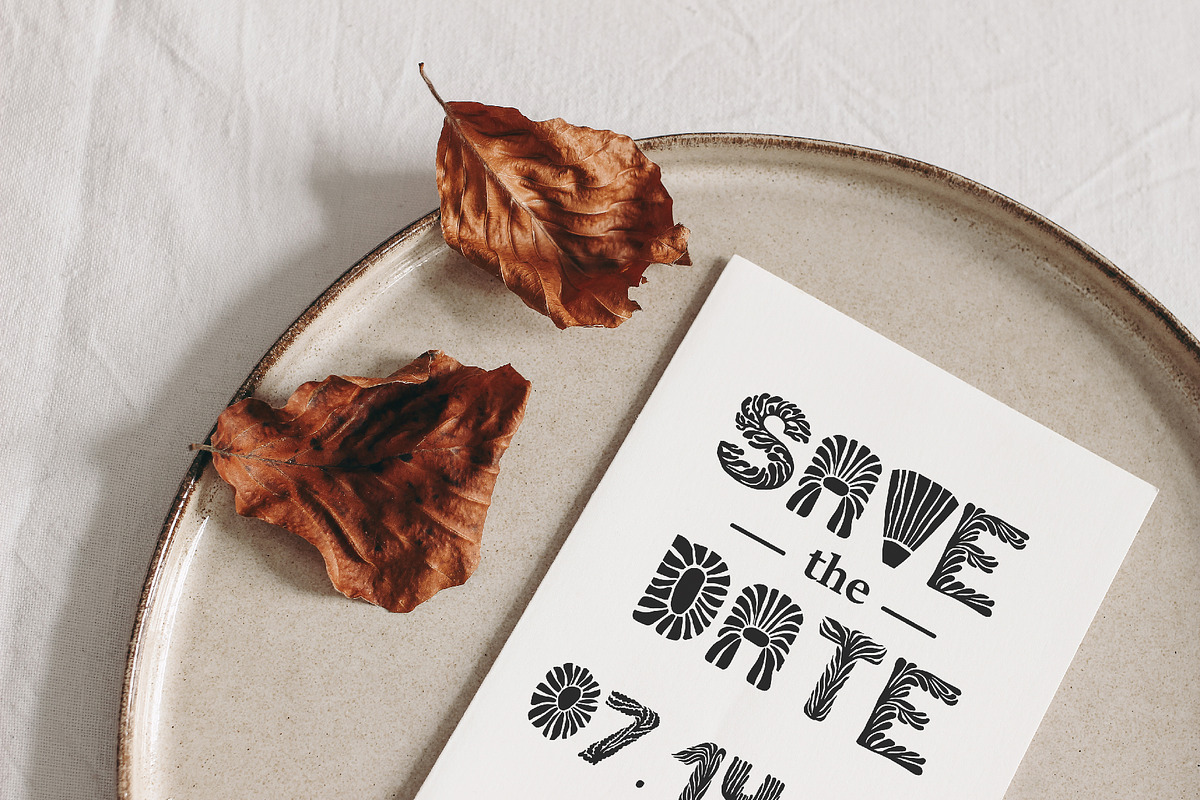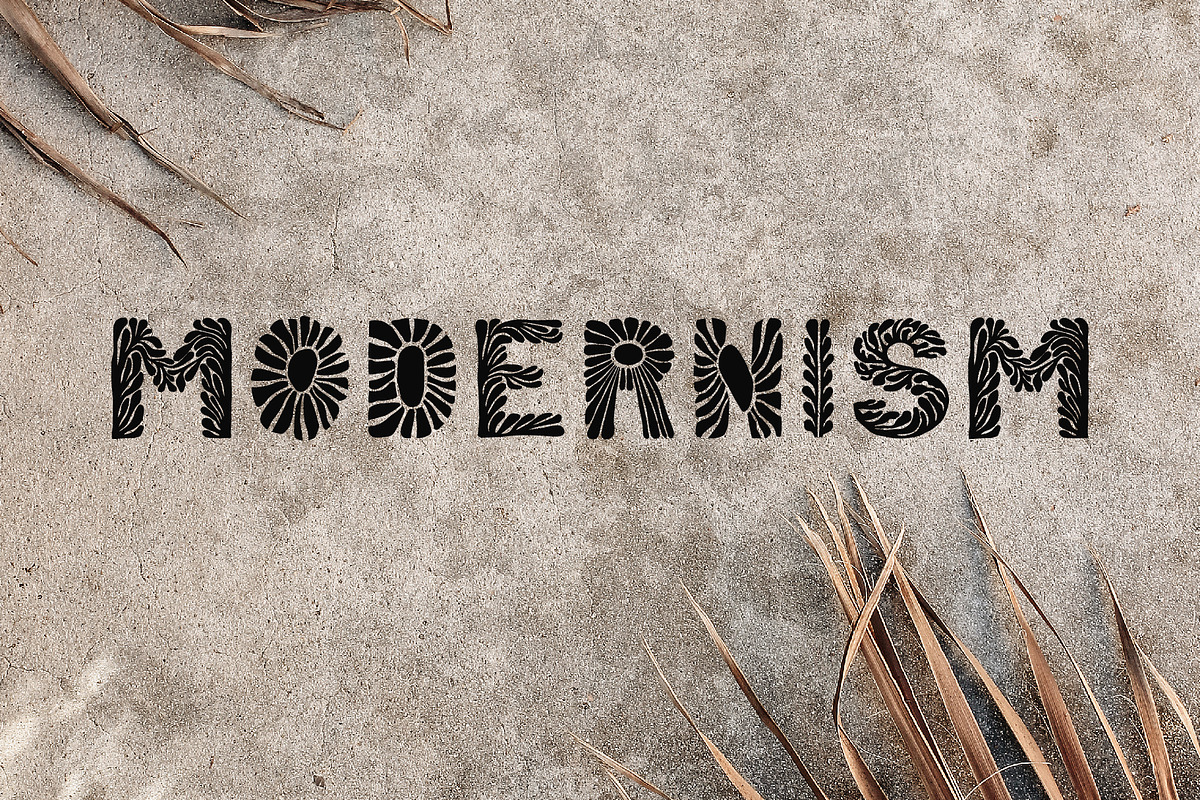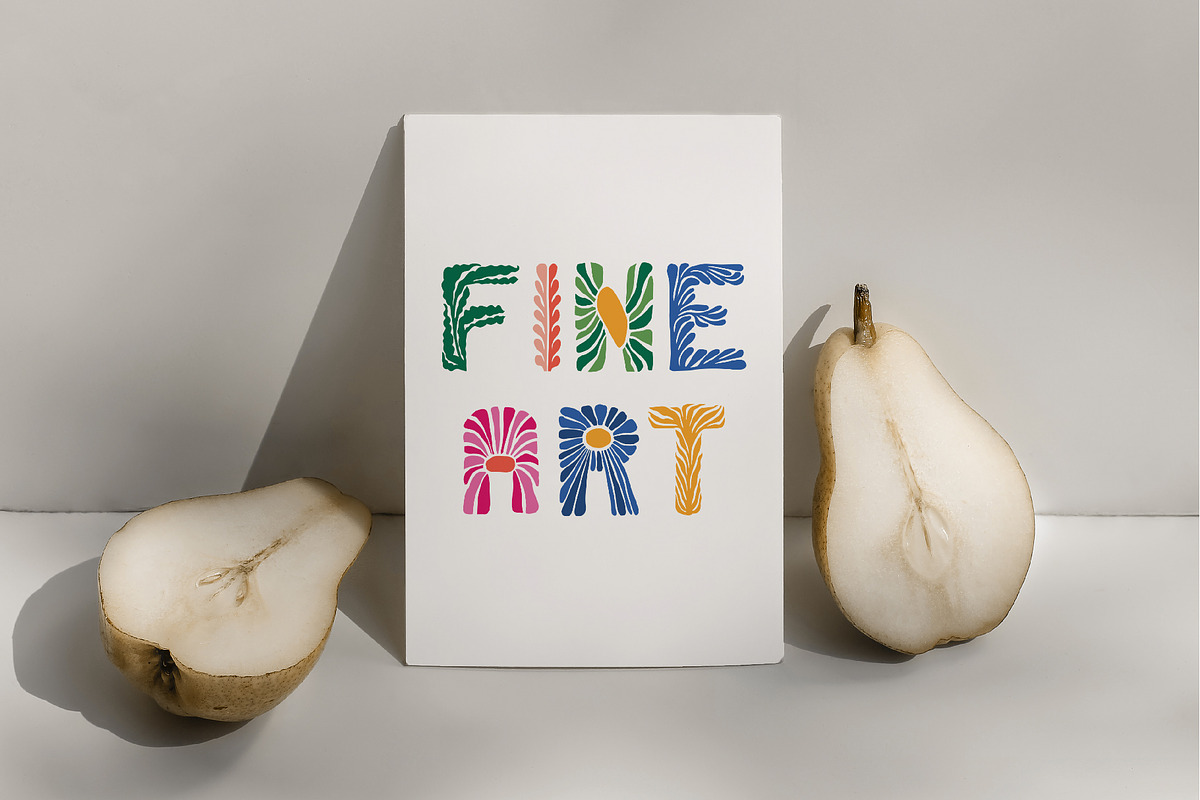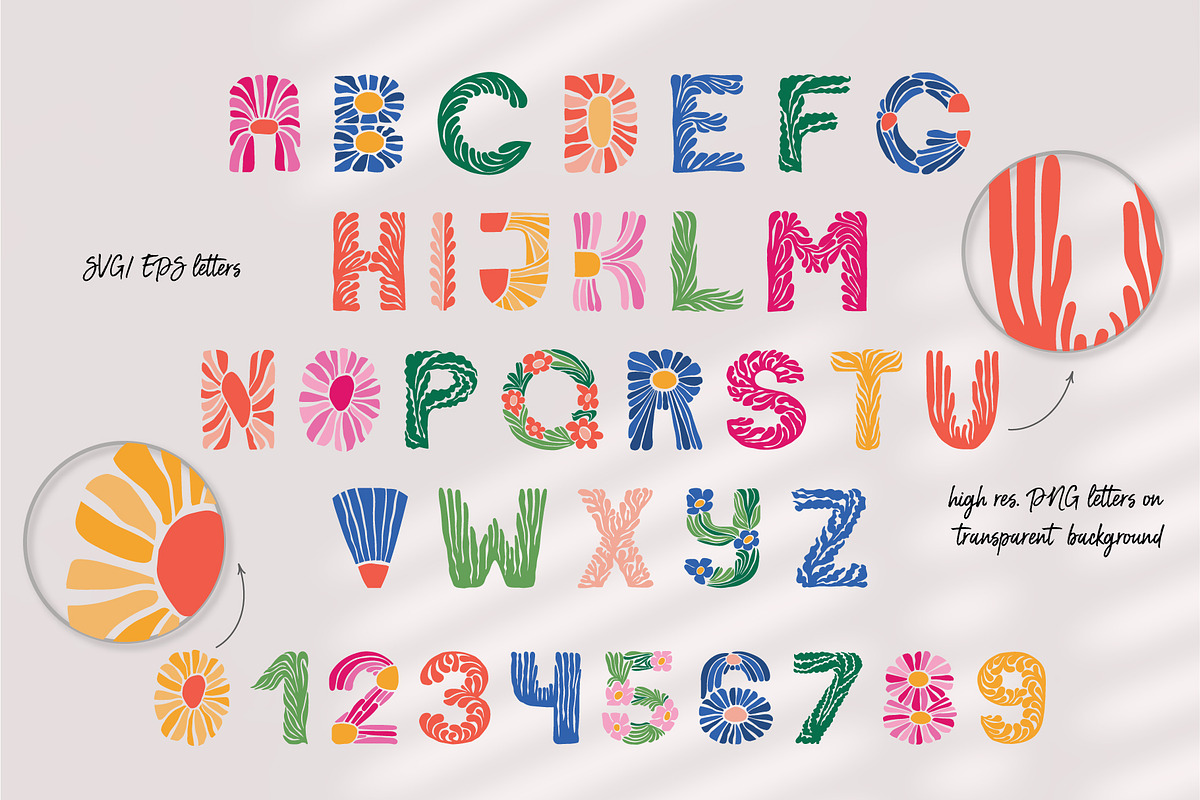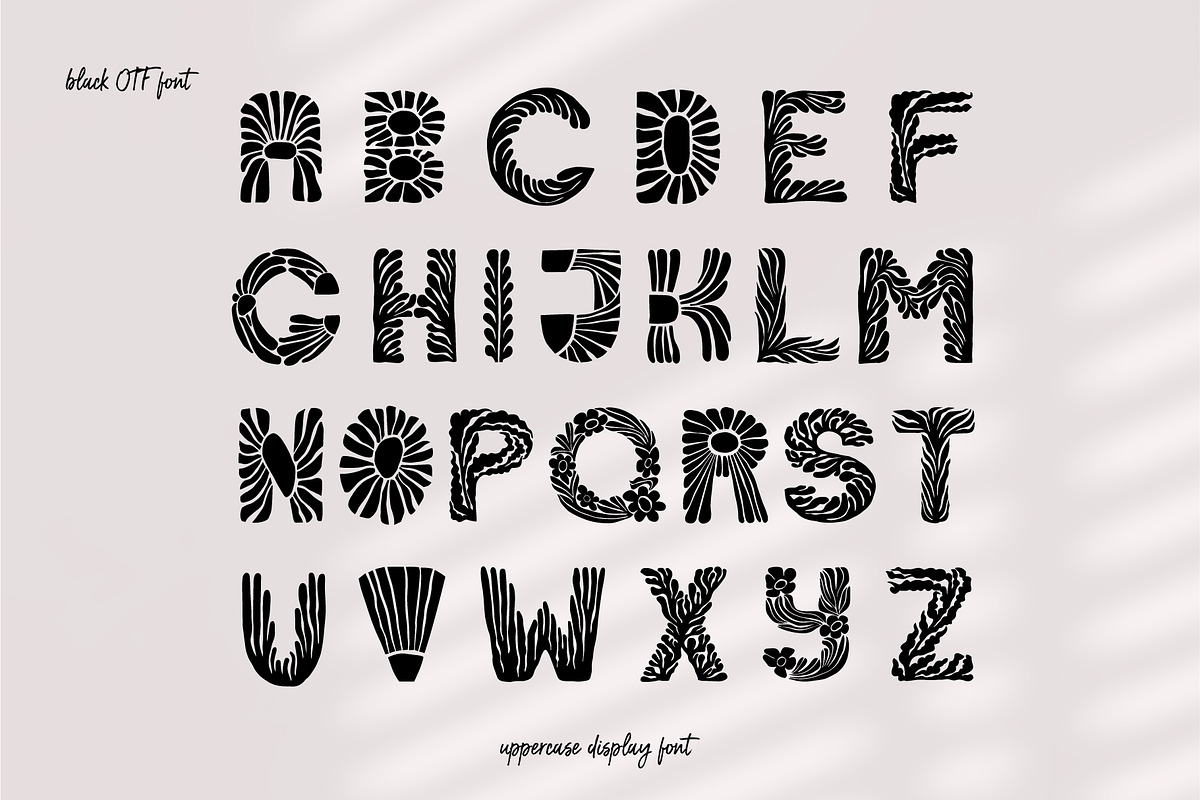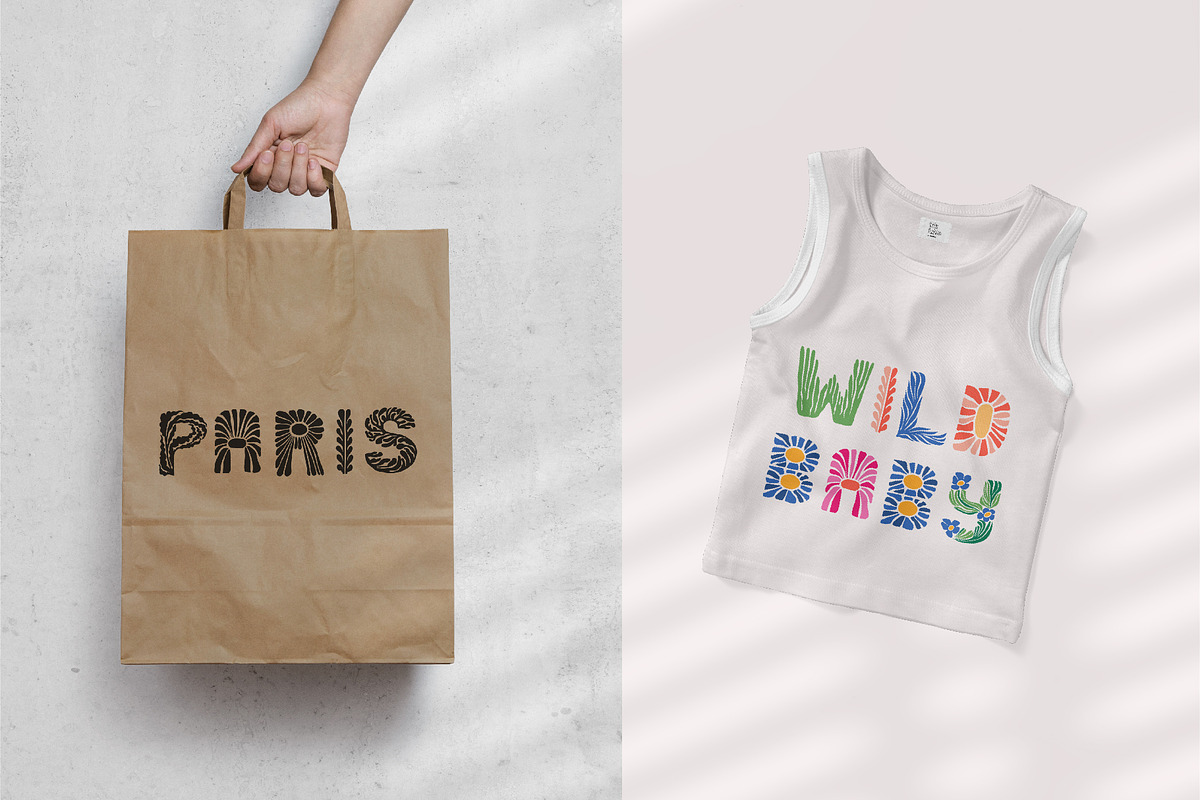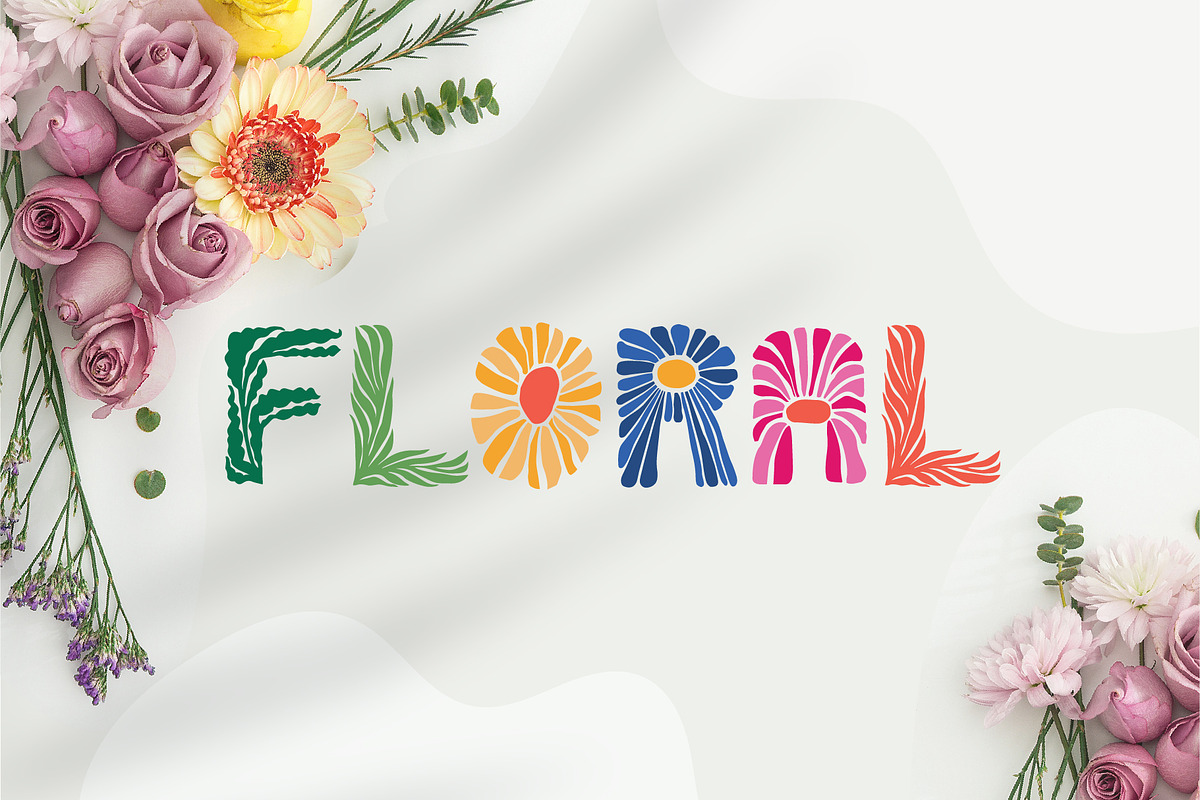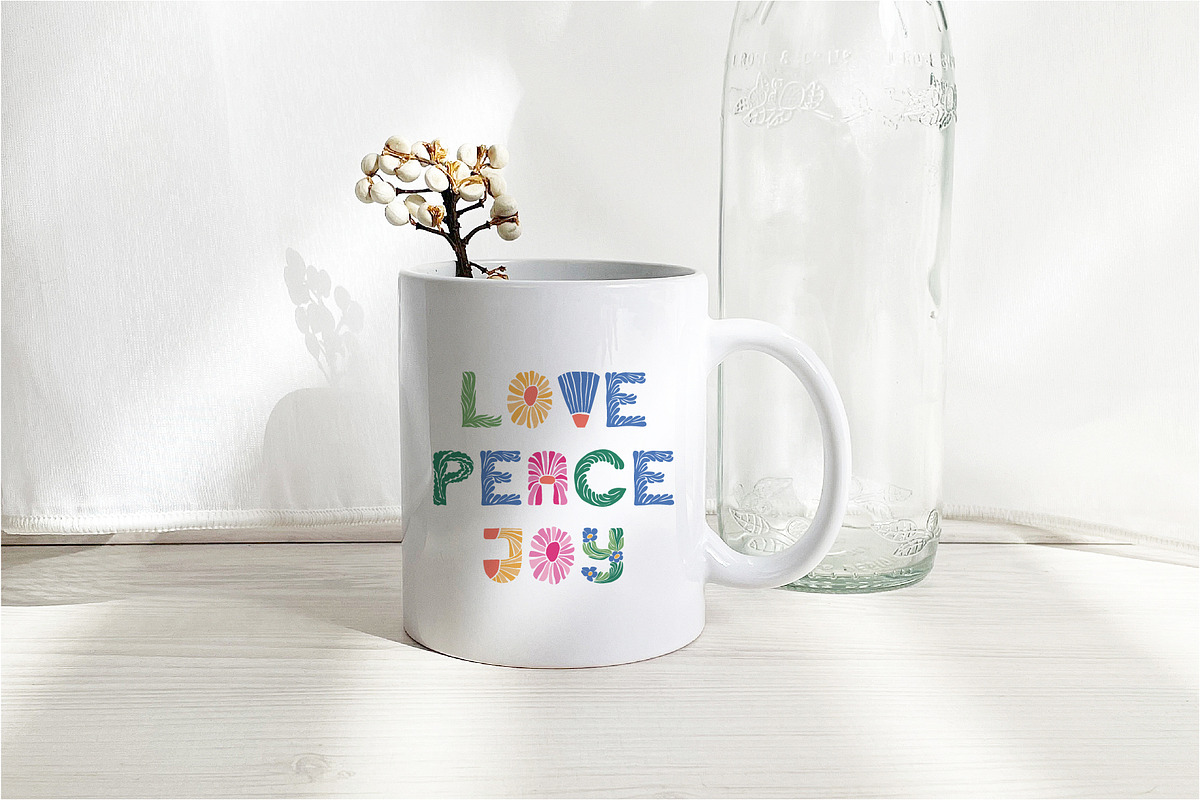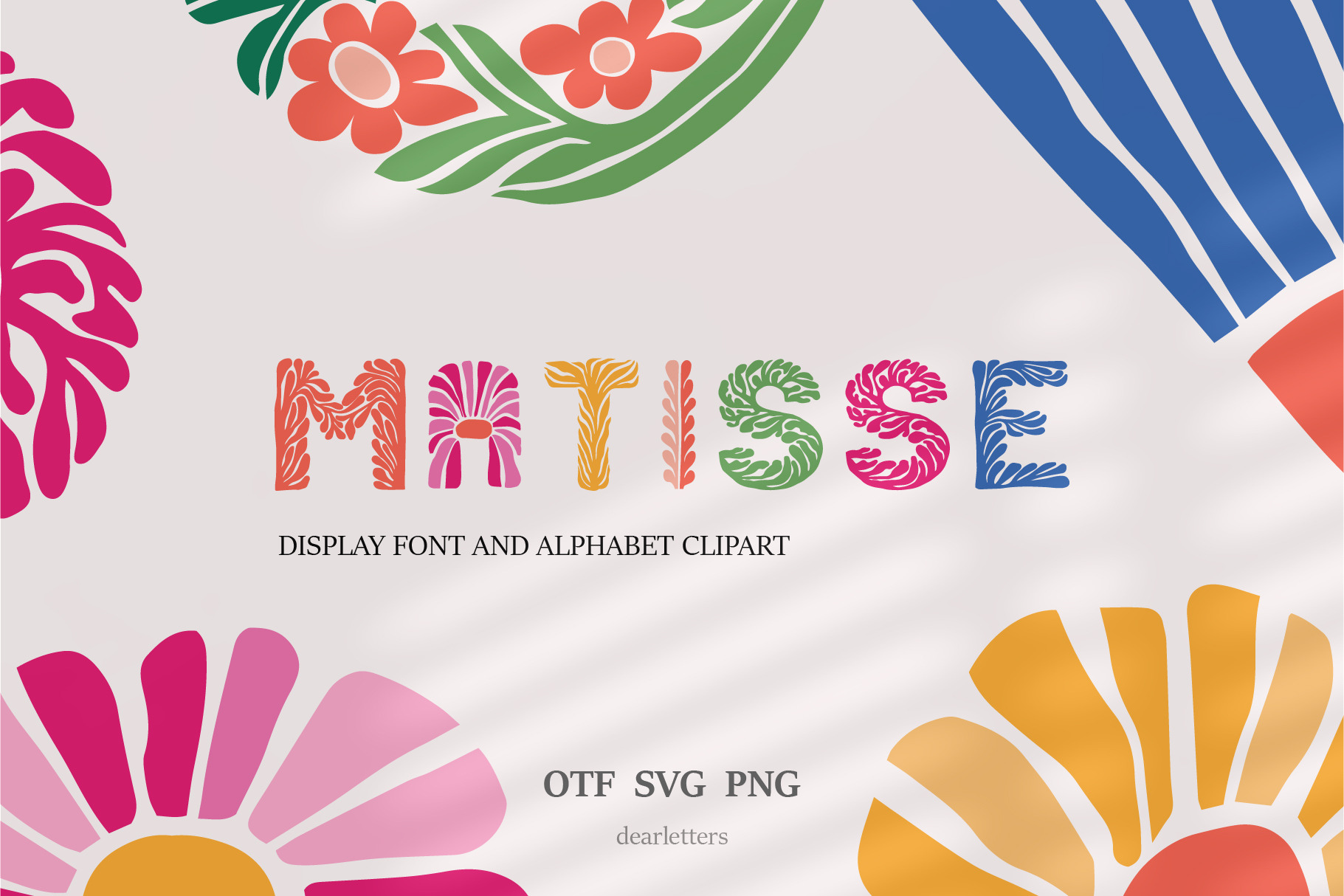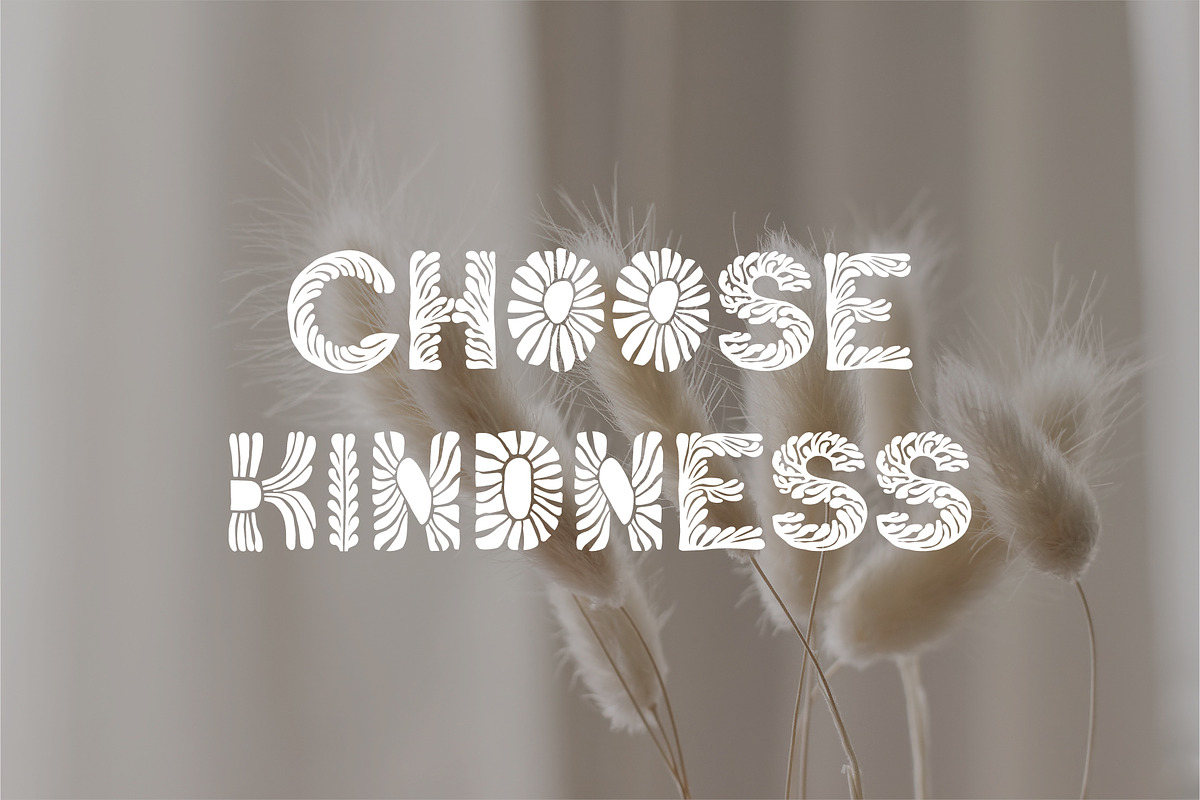
Matisse, Display Font in 2 colors
MATISSE FONT is a bold decorative hand-drawn uppercase typeface, presented in two color variations. It's an authentic font that works great with branding projects, social media, logo design, wedding invitations, clothing branding, product packaging, nursery printables, magazine headers, photo overlays, posters, e.t.c.